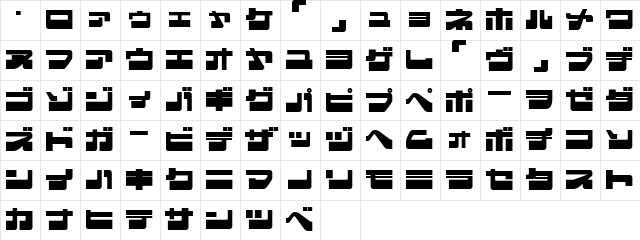
EjectJap LowerPhat Free Font
EjectJap LowerPhat
Style: LowerPhat
Design Context for EjectJap
EjectJap is a composed and adaptable typeface that performs quietly and consistently across a wide range of design contexts.